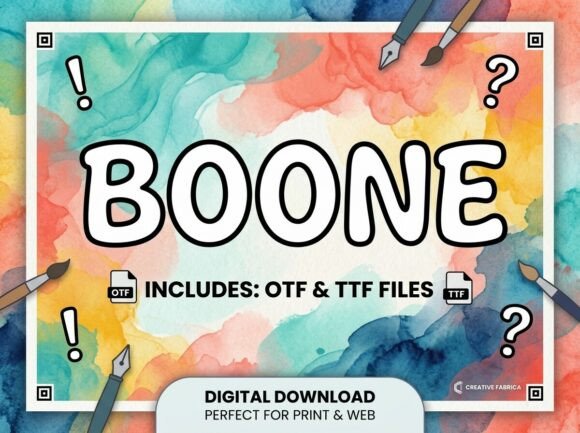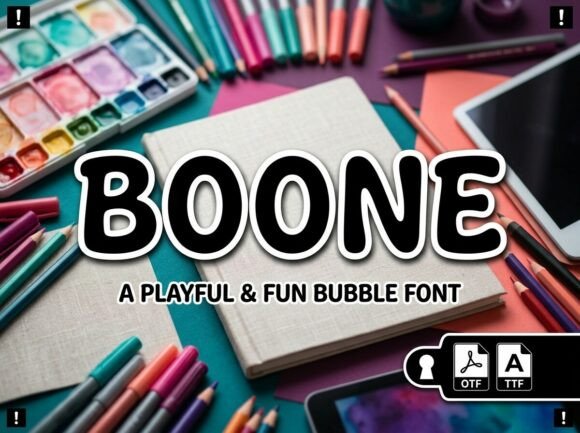
Have you ever stared at a blank page, waiting for the perfect idea to strike? That’s exactly what happens when you need a font that makes your design pop. You’re searching for something that captures the essence of your message, something that elevates your art to new heights.
That’s where the Boone Font comes in – a stunning decorative display font designed to be the center of attention. With its unique artistic elements and strong visual personality, this font is perfect for creators who want to break away from the ordinary. Whether you’re a seasoned designer or just starting out, the Boone Font is a valuable addition to your toolkit, offering a professional and polished finish that’s sure to impress.
So, what sets the Boone Font apart? Its versatility, for one – it’s perfect for bold headlines, artistic logos, and creative packaging. And with its OTF and TTF files, you can use it across all devices with ease.
- Unique Characteristics: Boone Font features a unique blend of modern and traditional elements, with a distinctive rounded edge and subtle texture, making it perfect for creative and design-oriented projects.
- Font Style: Boone Font is available in Regular, Italic, Bold, and Bold Italic styles, providing users with a range of options to suit their design needs.
Designer Review: Boone Font
Boone Font is an interesting addition to the world of sans-serif typography. ✨ One of the things that stands out about this font is its clean and modern aesthetic, making it perfect for a wide range of applications from digital design to print materials. The font’s geometric shape and smooth lines give it a unique look that’s both sophisticated and approachable.
✨ Another advantage of Boone Font is its versatility – it works well for both body text and headings, and its open letterforms make it easy to read even at smaller font sizes. The font also comes in a variety of weights, from light to bold, which adds to its overall flexibility.
Limits and Drawbacks
⚠️ One of the main limitations of Boone Font is its lack of expressiveness – the font’s clean lines can sometimes make it feel a bit cold or unengaging, especially when used for extended periods of time. Additionally, the font’s geometric shape can sometimes make it difficult to distinguish between similar characters, such as the ‘i’ and the ‘l’.
⚠️ Another potential issue with Boone Font is its limited support for non-English languages – while it works well for English text, the font’s design may not be as effective for languages with more complex scripts or diacritical marks.
Overall, Boone Font is a solid choice for designers looking for a clean and modern sans-serif font. While it may not be the most expressive or versatile font on the market, it’s a great option for a wide range of applications, and its clean lines make it easy to read and use. With a bit of careful consideration and planning, Boone Font can be a valuable addition to any designer’s toolkit.
Recommendations
- Use Boone Font for body text and headings in digital and print materials.
- Choose the right weight for the job – Boone Font comes in a range of weights, from light to bold.
- Consider pairing Boone Font with a more expressive font to add some visual interest.
Boone Font is a versatile font that can be used for a variety of purposes, including:
- Creating rustic or vintage-themed designs.